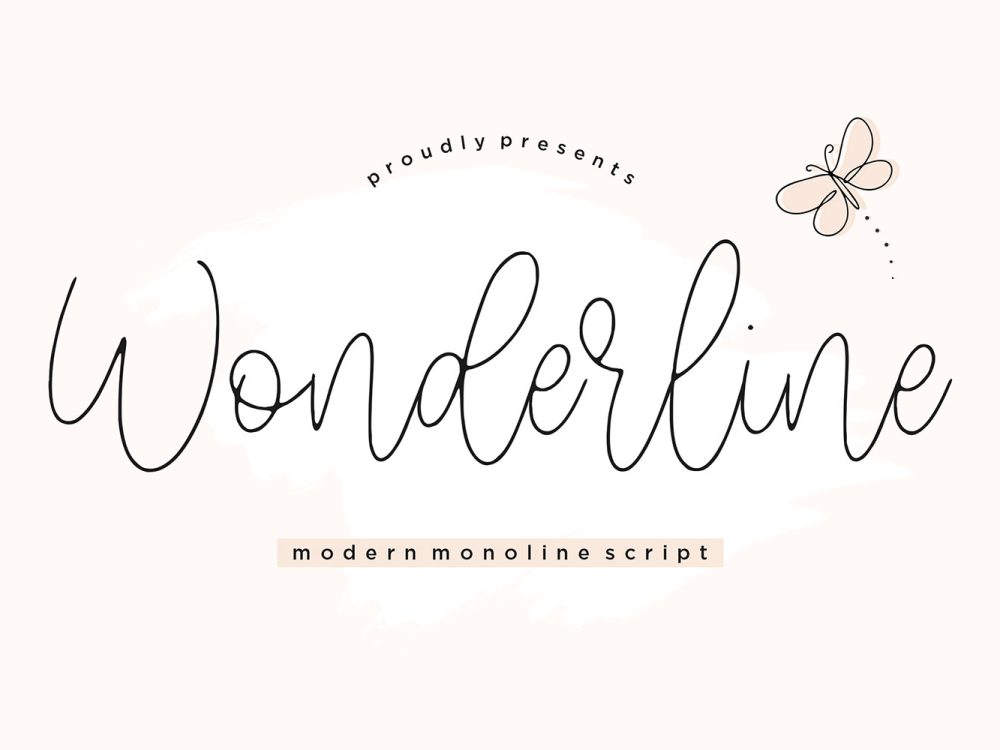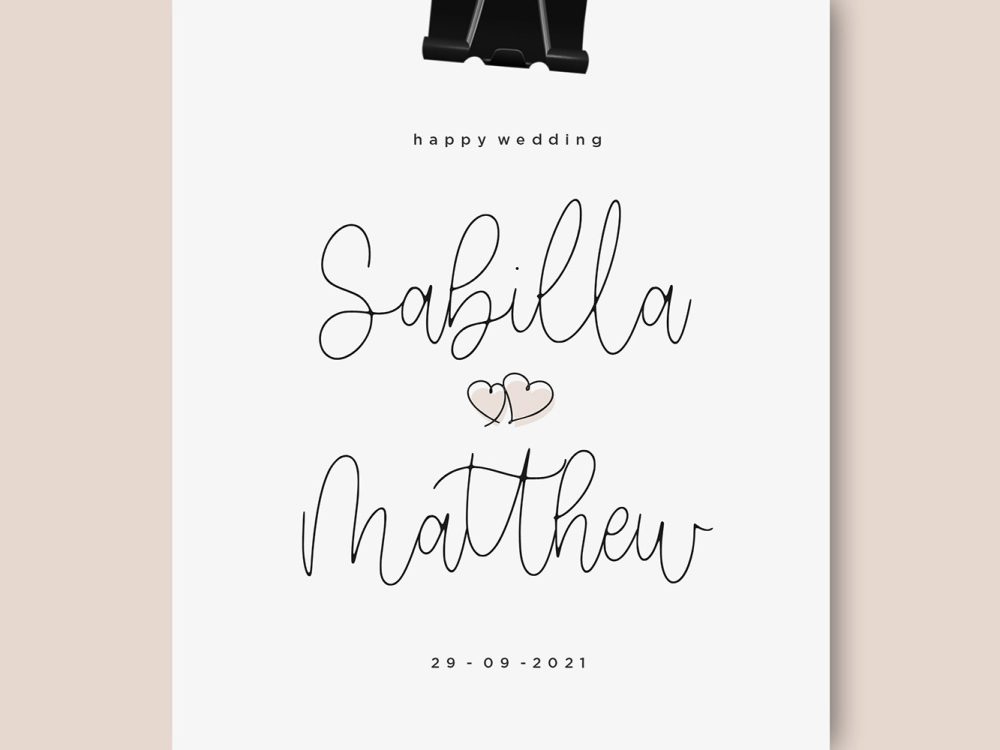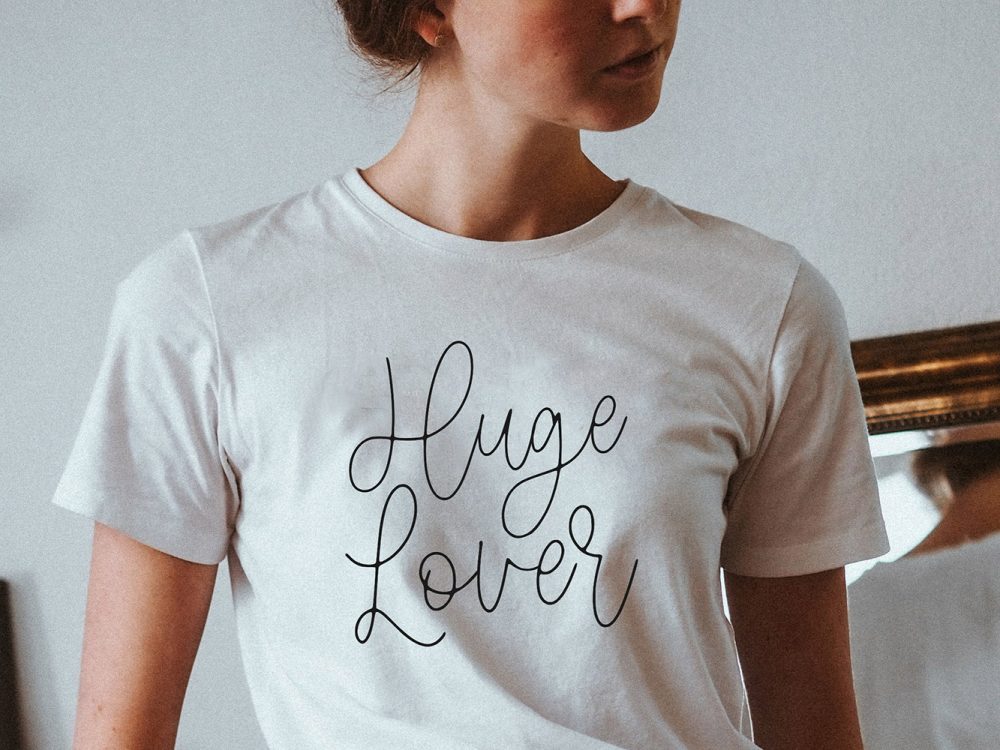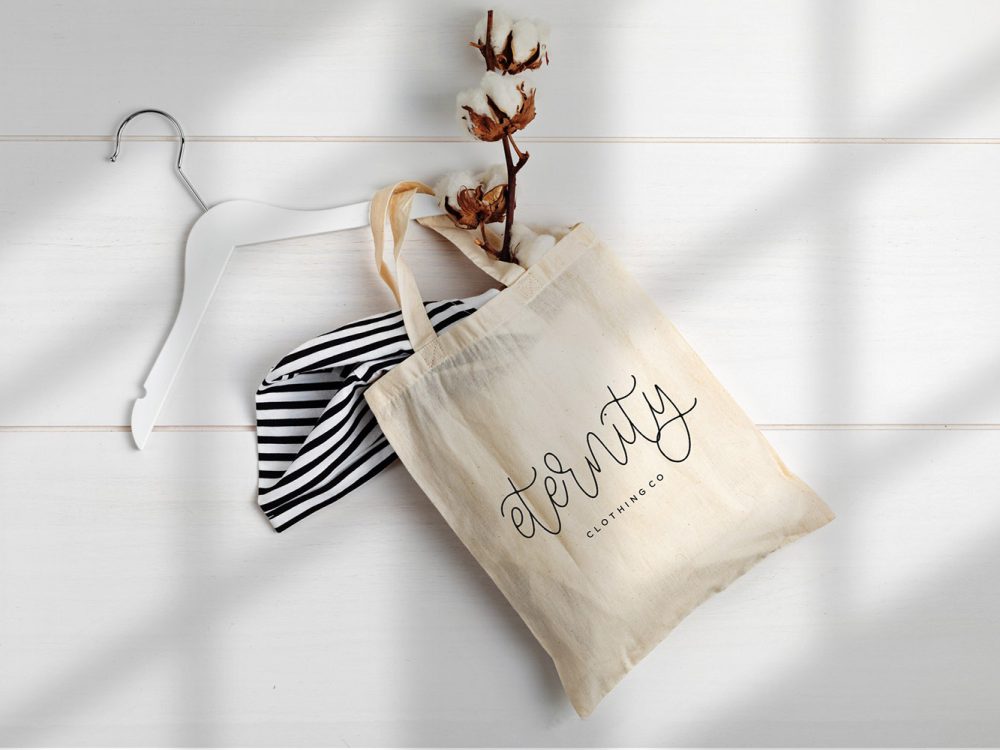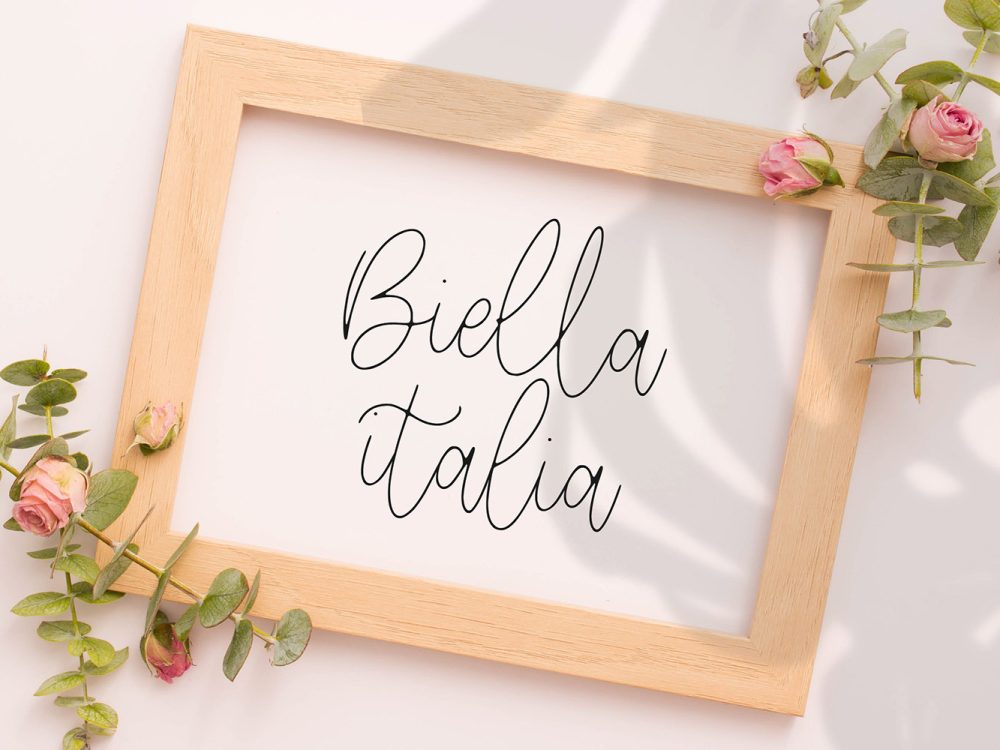
Introducing Wonderline Free Font: a charming and enduring handwritten font selection. It stands as the ultimate option for crafting attention-commanding logos, establishing distinctive branding, and giving life to memorable quotes. Each letter boasts an individualized and exquisite flourish, breathing vitality into your designs. If you like it don’t forget to check out the full version.
Author: Balpirick Studio.